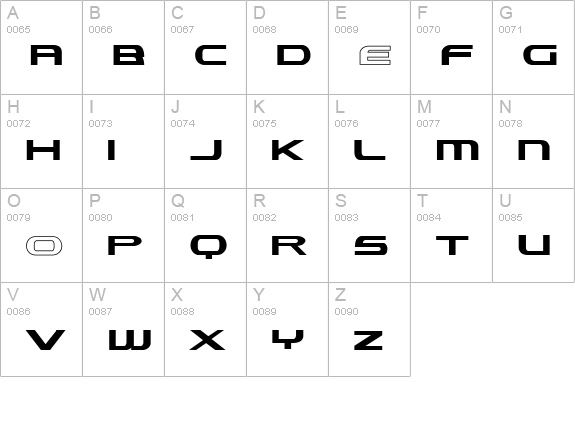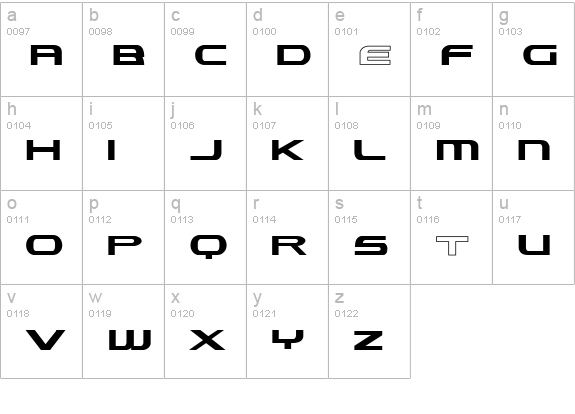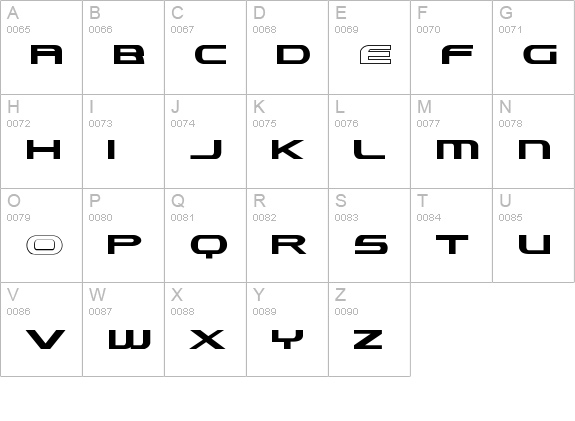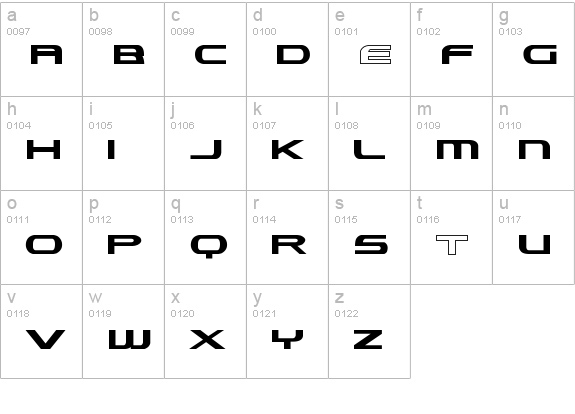
Lexust Demo Font Details
Introducing Lexust Demo, a captivating and versatile font that will elevate your designs to new heights. This stunning typeface effortlessly merges modern sophistication with an artistic flair, making it perfect for a wide range of projects. With its clean lines and elegant curves, Lexust Demo exudes a sense of professionalism and refinement. Whether you're designing a logo, creating a poster, or crafting a website, this font will add a touch of class and sophistication to your work. But the best part? Lexust Demo is completely free! That's right – you can download this incredible font at no cost from FontsMarket.com. Now, you can enhance your designs without breaking the bank. Unleash your creativity with Lexust Demo and watch as your projects come to life with elegance and style. This font is destined to become a favorite among designers, and it's easy to see why. Its versatility and eye-catching appeal make it a perfect choice for any project, from branding to advertising to editorial design. So why wait? Download Lexust Demo today and experience the power of free design resources. FontsMarket.com is your go-to source for high-quality fonts, and Lexust Demo is just one of the many gems waiting to be discovered. Get ready to impress with this modern and sophisticated typeface that will take your designs to the next level.